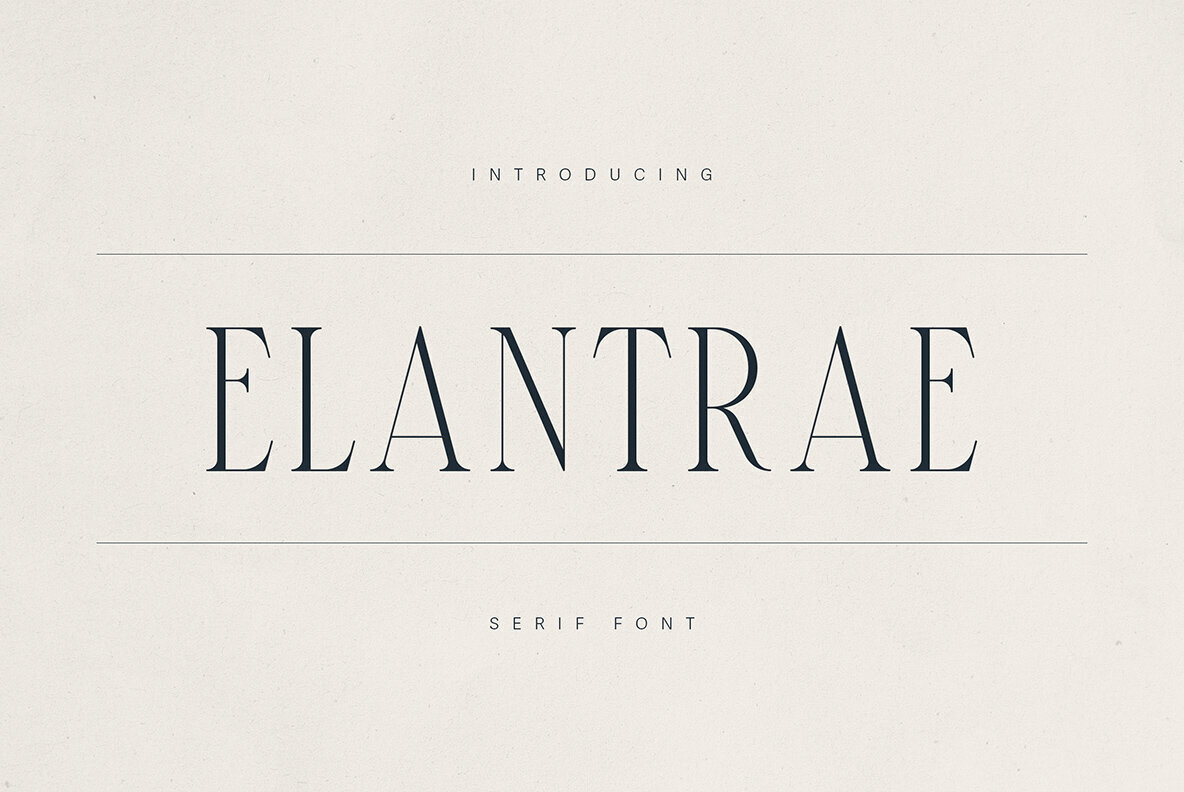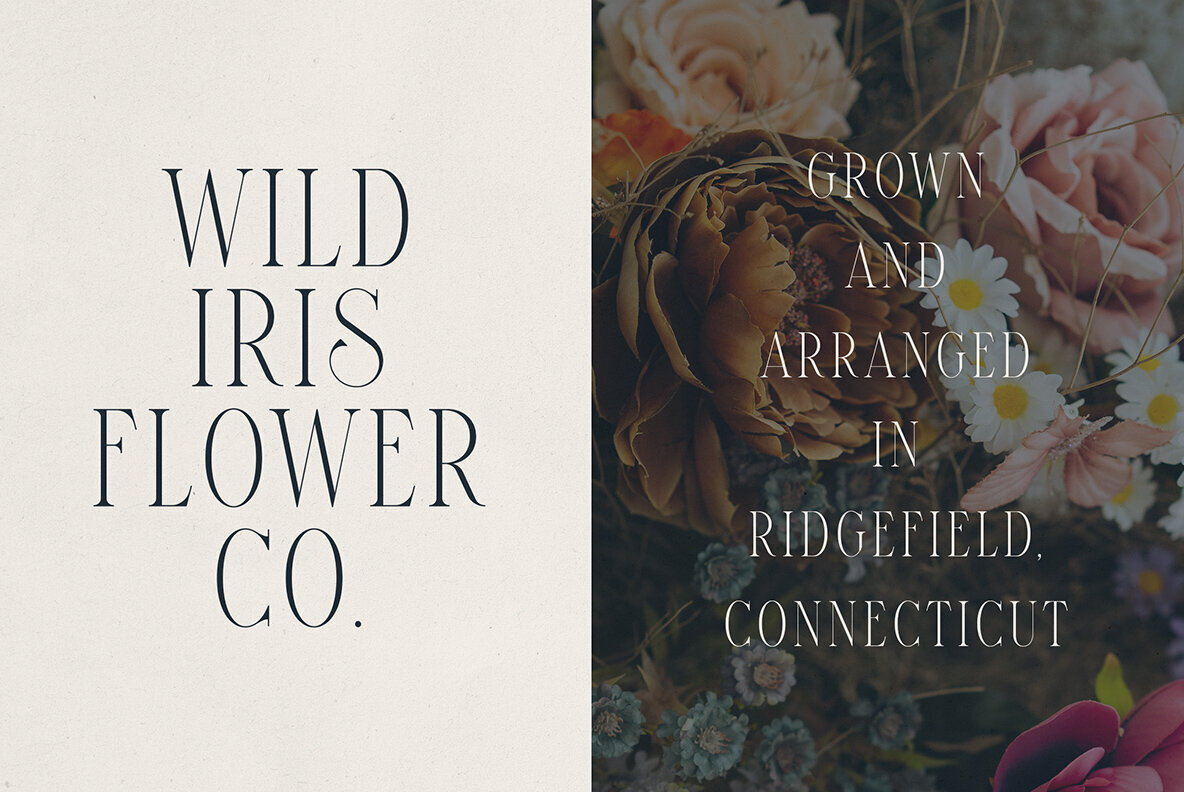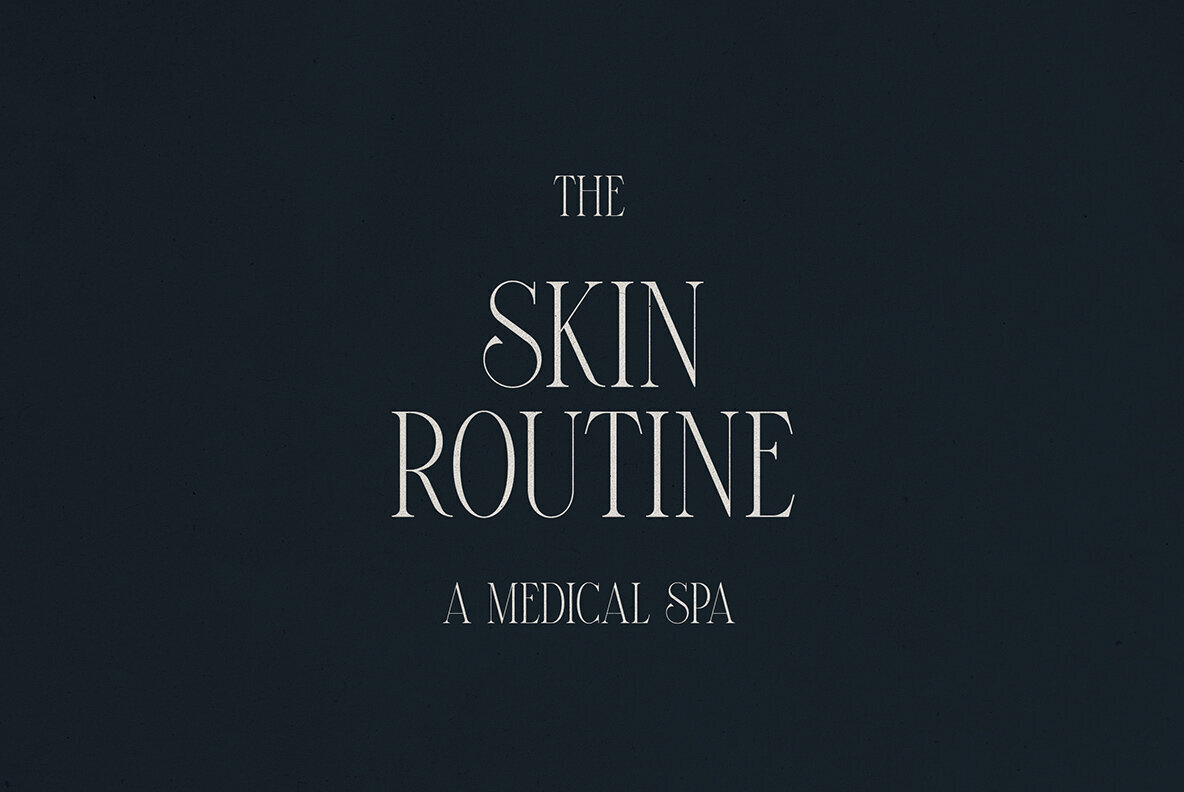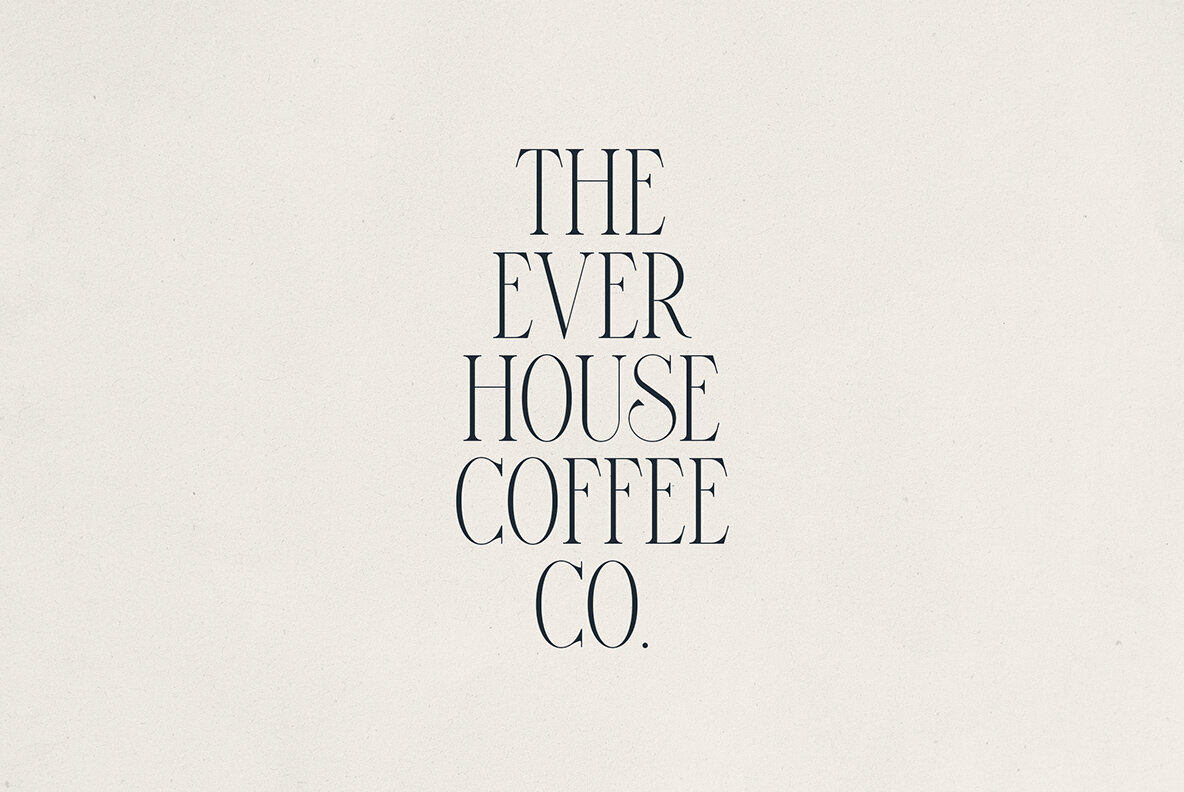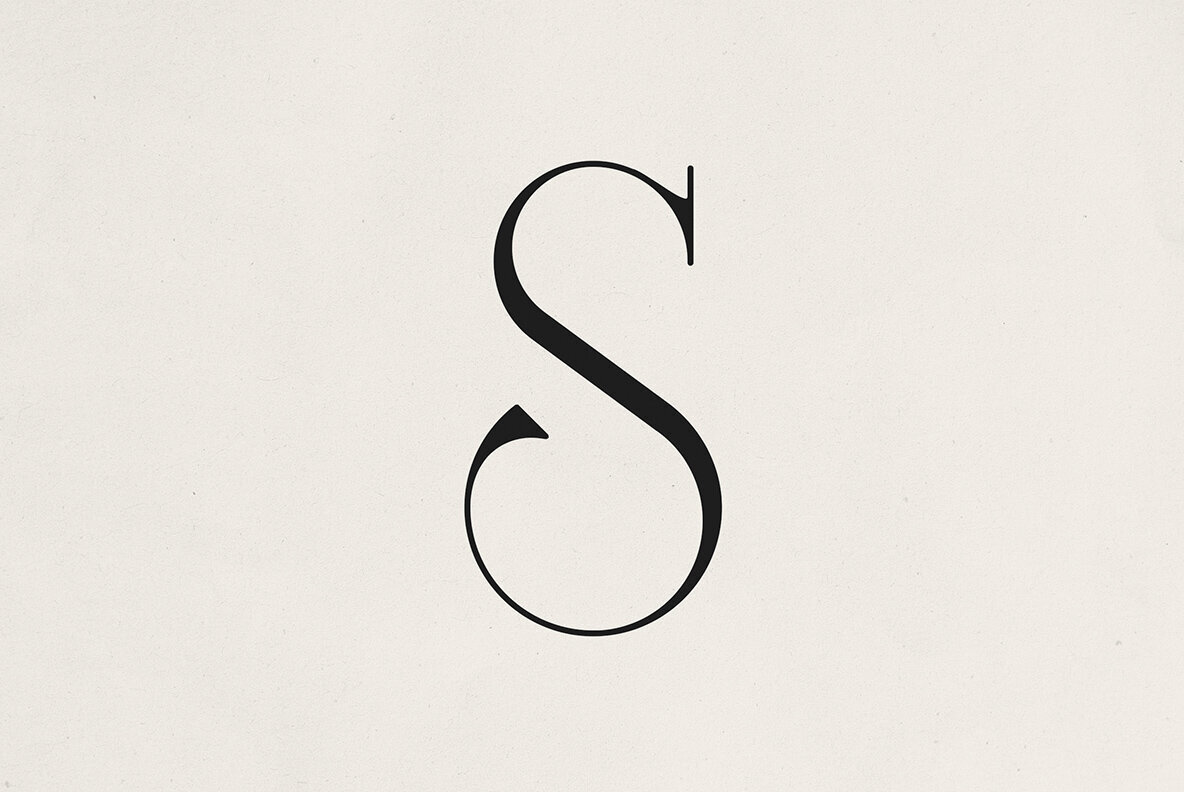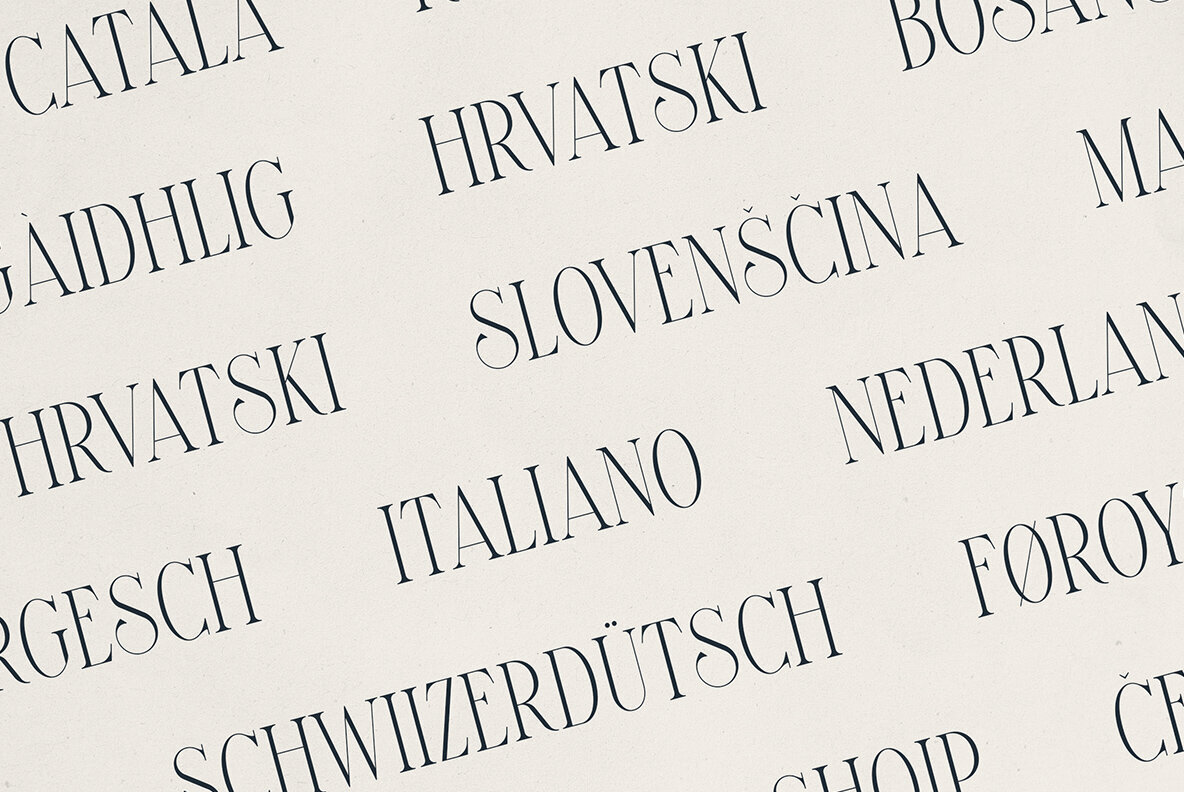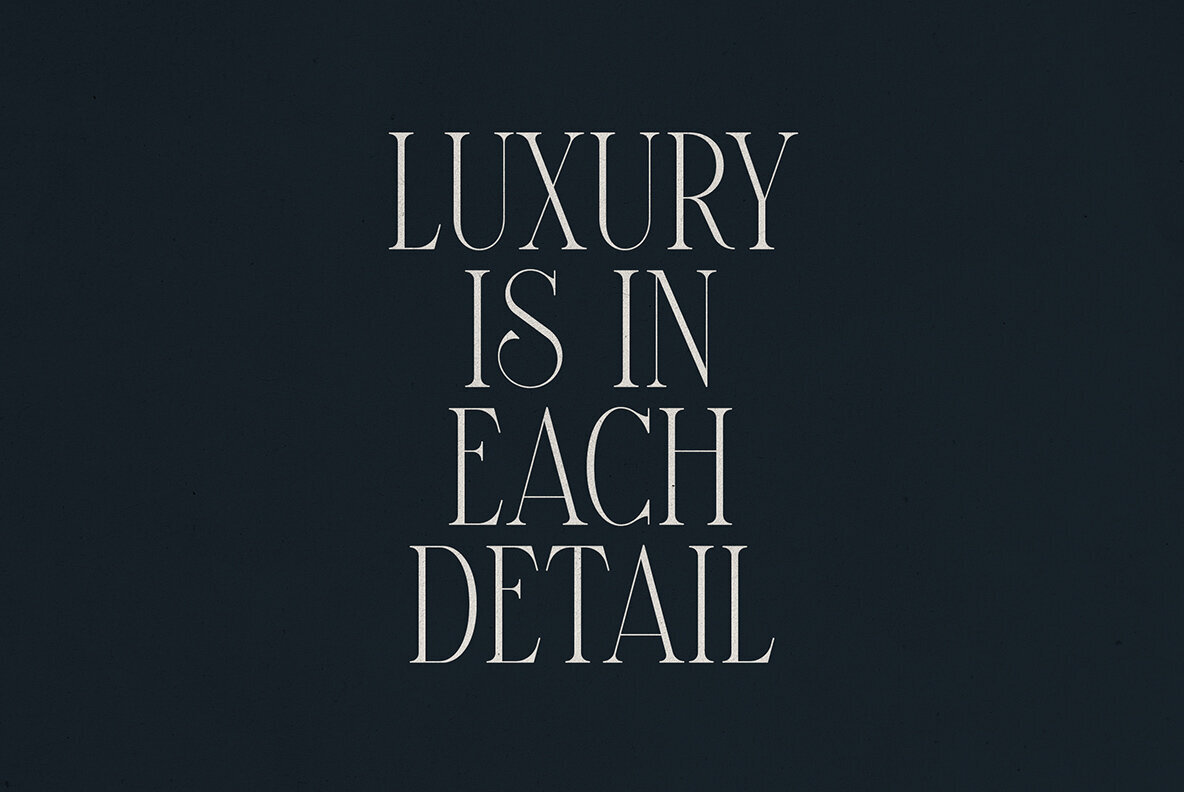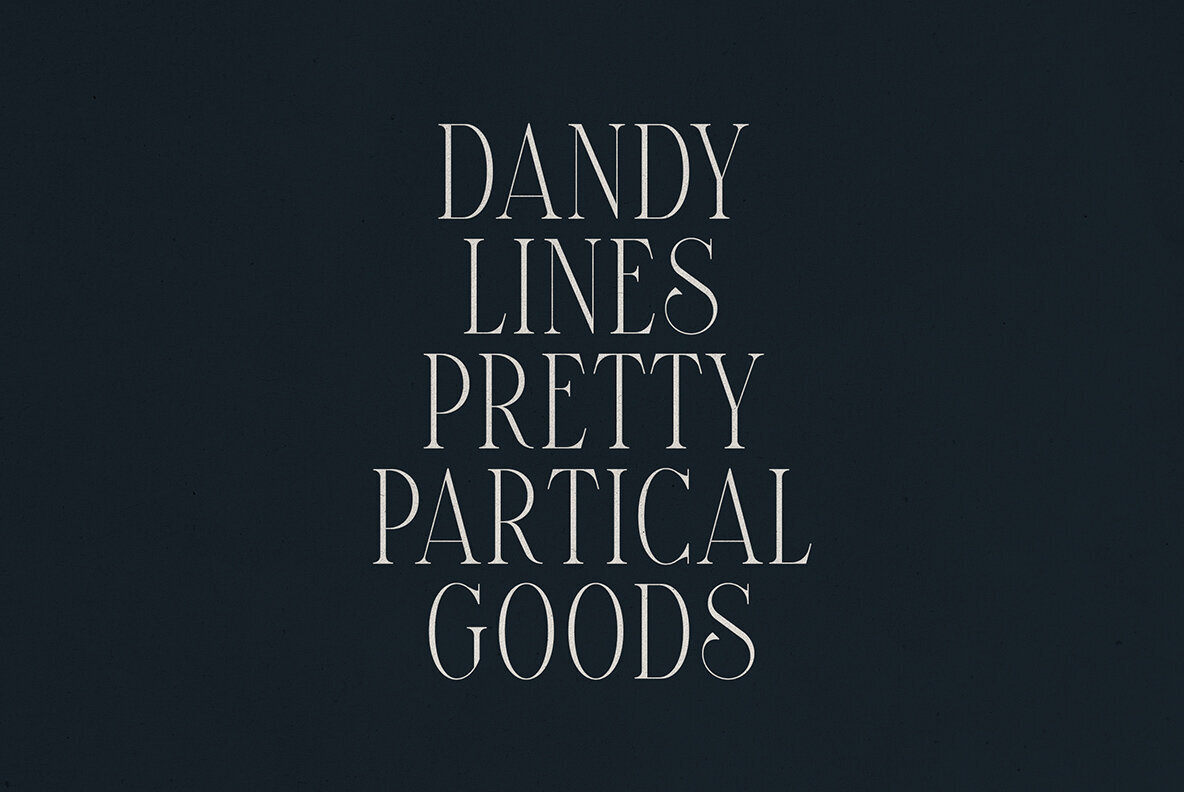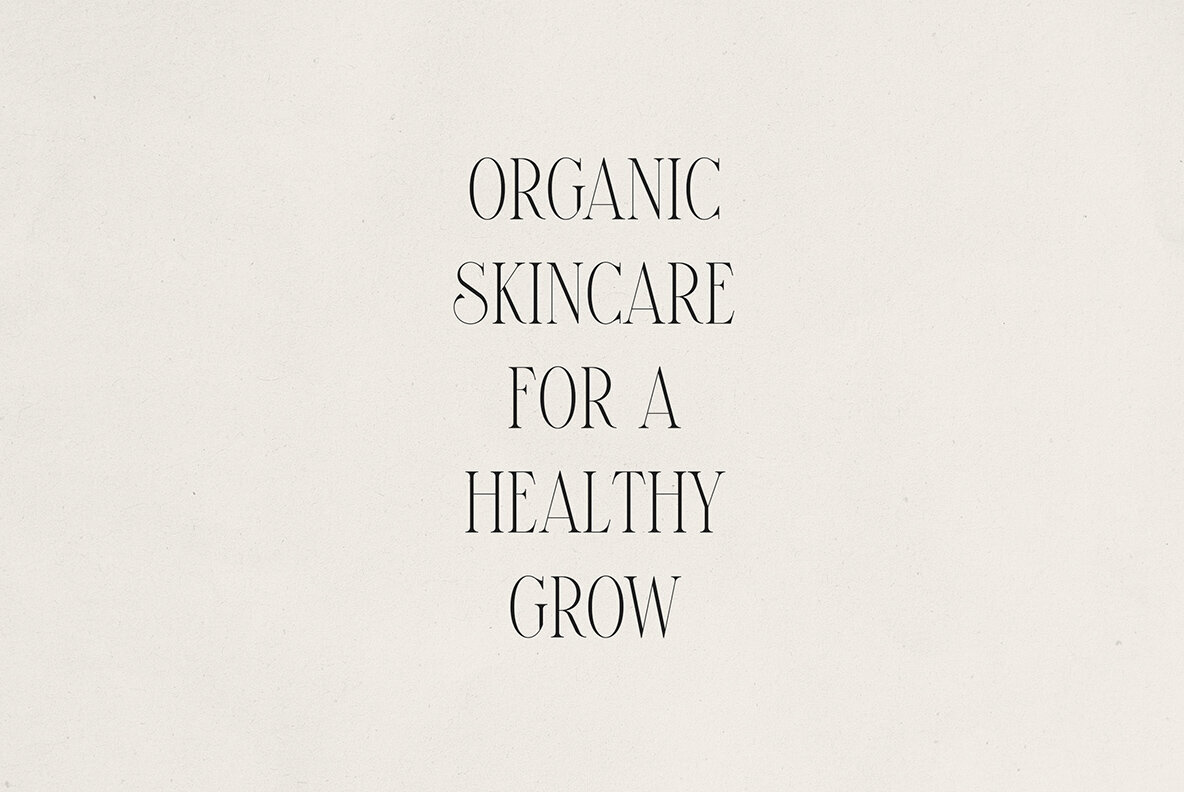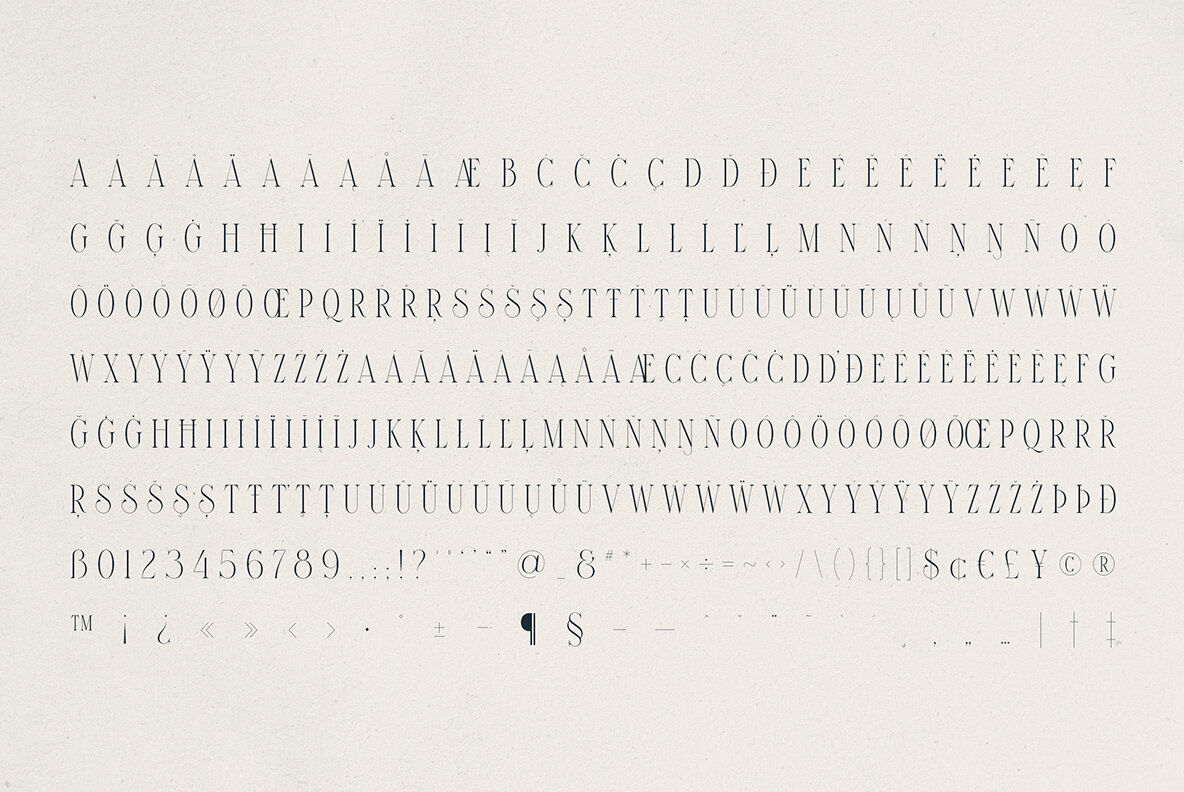
Elantrae Font
Elantrae Regular
Discover Elantrae, a refined serif typeface that seamlessly blends classic sophistication with contemporary elegance. Designed for timeless branding and editorial excellence, Elantrae features tall, slender letterforms and high contrast strokes. Its graceful curves make it a perfect choice for fashion labels, beauty brands, and high-end packaging. Ideal for creating a luxurious touch in wedding stationery, boutique businesses, and magazine headlines, Elantrae adds a subtle vintage charm to logos and refined social media content. Whether you're designing a romantic floral brand or a sleek skincare label, this font ensures a modern yet timeless aesthetic. Elantrae supports a wide range of languages including Afrikaans, Albanian, Danish, Dutch, English, French, German, Italian, Spanish, Swedish, Turkish, and many more.Elantrae: Elegant Modern Serif Font